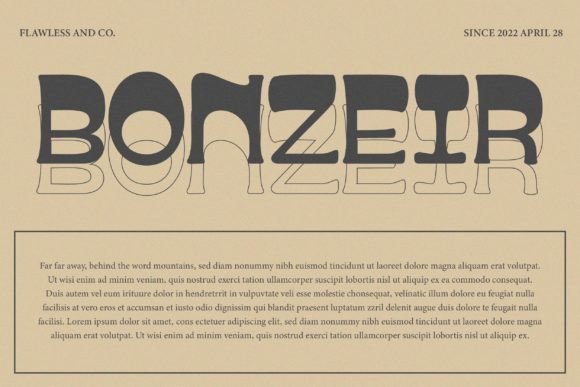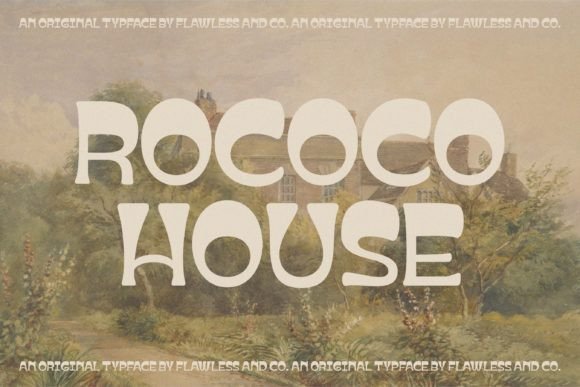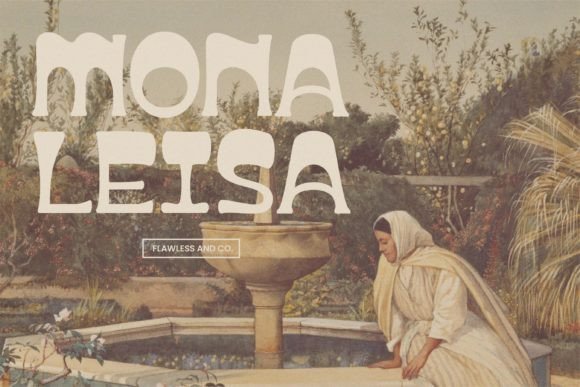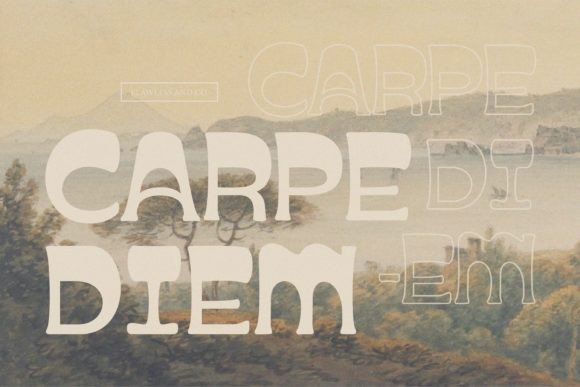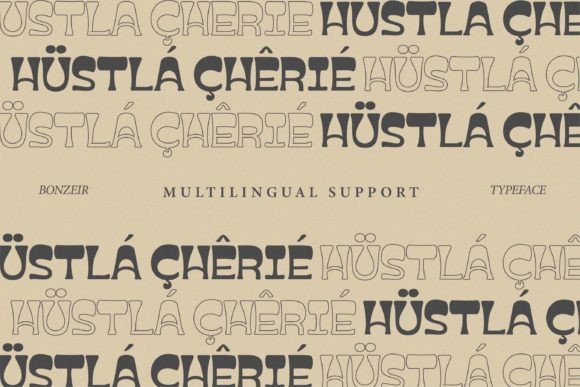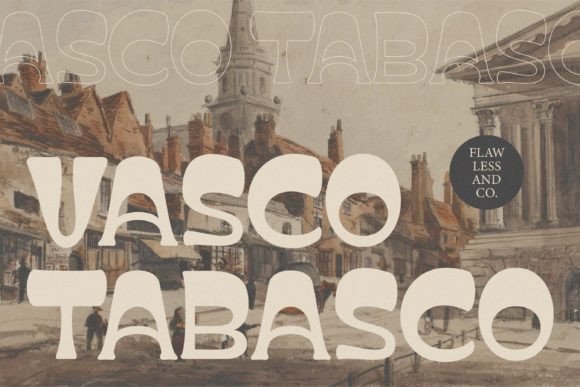
The Retro Charm of Bonzeir Font: A Designer’s Delight
I’ll never forget the time I was working on a bohemian-themed poster design project, and I just couldn’t seem to find the perfect font to capture that carefree, eclectic vibe. My client was adamant about achieving a retro look, but I was stuck in a design rut. That’s when I stumbled upon the Bonzeir Font, and let me tell you, it was love at first sight! 💕
With its modern retro style and bold personality, Bonzeir Font instantly elevated my design and exceeded my client’s expectations. If you’re a designer, crafter, or creative hobbyist looking for a font that exudes a fun, playful spirit, you’re in the right place. In this article, we’ll dive into the world of Bonzeir Font, exploring its features, uses, and some helpful tips and tricks to get the most out of this amazing font.
An Honest Review of Bonzeir Font
What I Love About Bonzeir Font ✨
- ✅ Unique and eye-catching design that’s perfect for boho-themed projects
- ✅ Fun and bold style that’s sure to make your designs stand out
- ✅ Highly versatile and can be used for a wide range of projects, from poster designs to branding materials, t-shirts, business cards, logos, and more
- ✅ Alternate characters available for added visual interest and variety
- ⚠️ Some users may find the font a bit too bold or overpowering for certain designs
- ⚠️ Limited use of subtle font variations, which may not be ideal for designs requiring a more nuanced approach
The Story Behind Bonzeir Font
Bonzeir Font was designed by a talented type designer who’s passionate about creating unique, eye-catching fonts that inspire creativity. With a keen eye for detail and a deep understanding of typography, the designer aimed to create a font that would capture the essence of modern retro style. The result is a font that’s both bold and beautiful, perfect for designers who want to add a touch of bohemian flair to their projects.
| Font Name | Bonzeir Font |
| Author | Flawless And Co |
Q: What type of projects is Bonzeir Font best suited for?
A: Bonzeir Font is perfect for boho-themed projects, such as poster designs, branding materials, t-shirts, business cards, logos, photography, quotes, and more.
Q: Is Bonzeir Font available in different font weights or styles?
A: While Bonzeir Font is primarily available in a single weight, its bold style and alternate characters provide plenty of flexibility for designers.